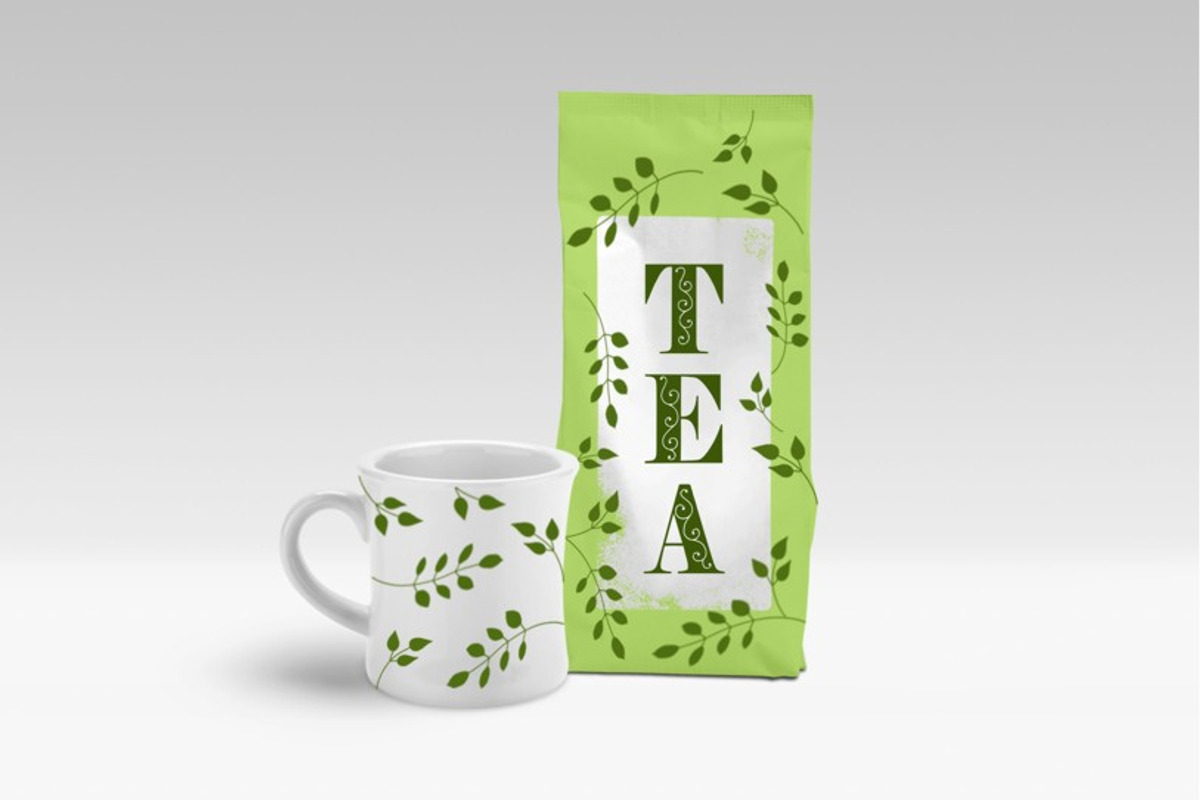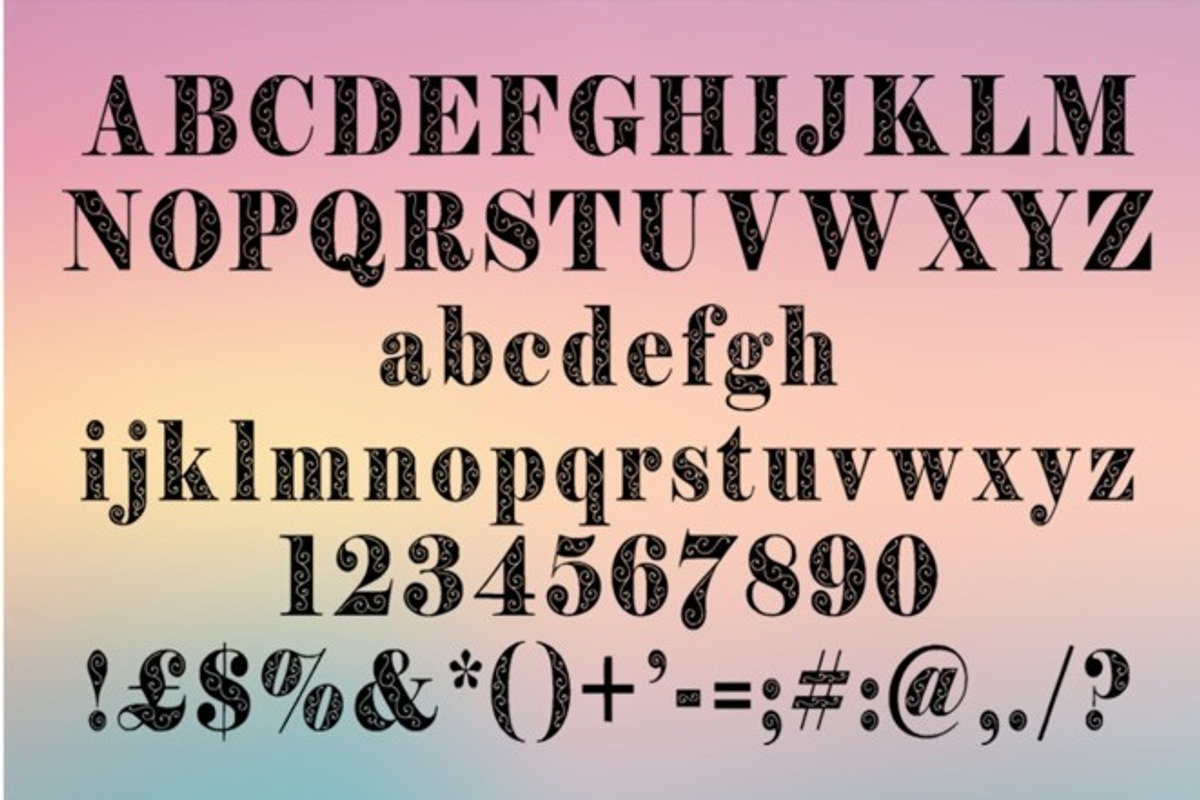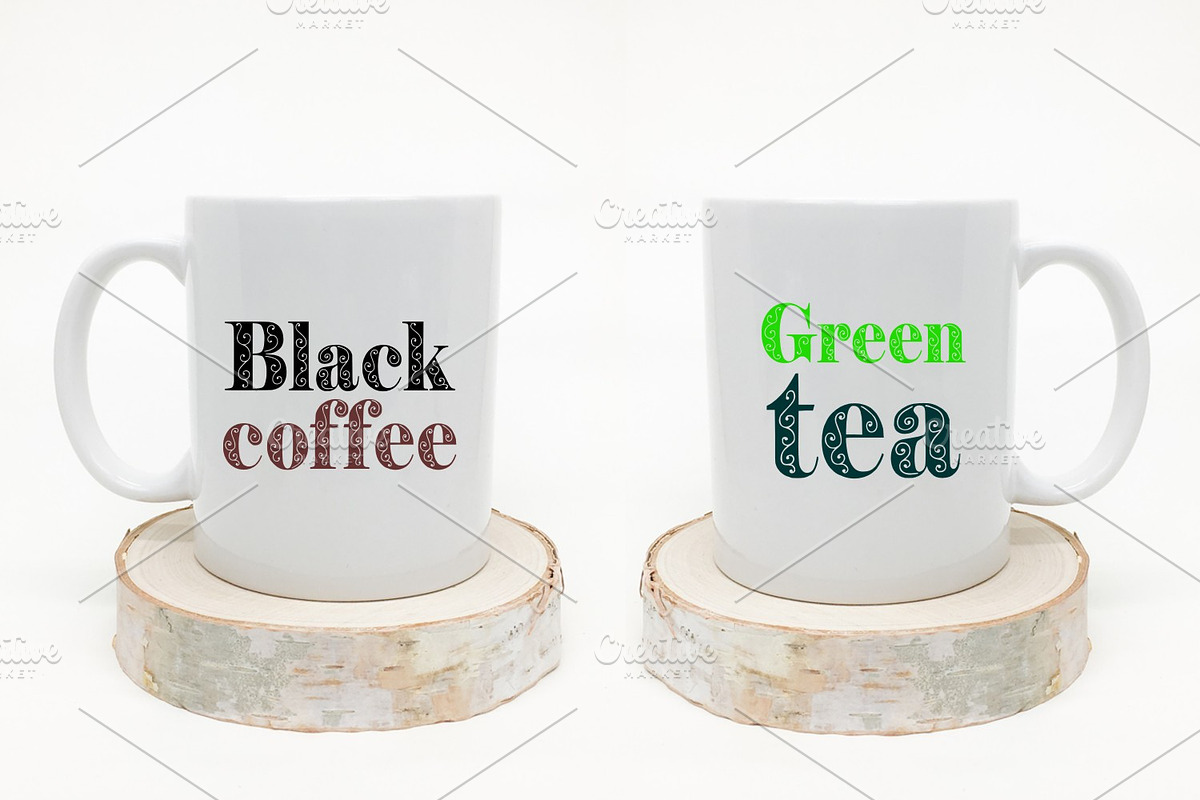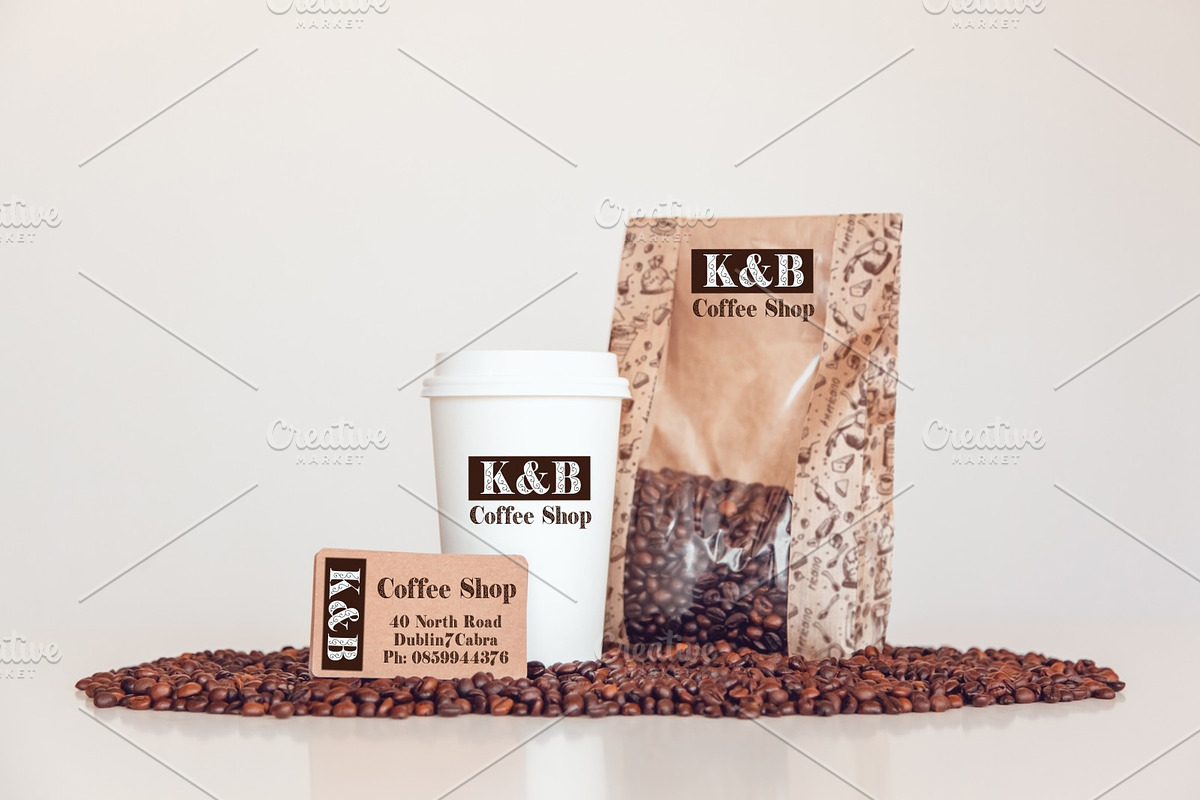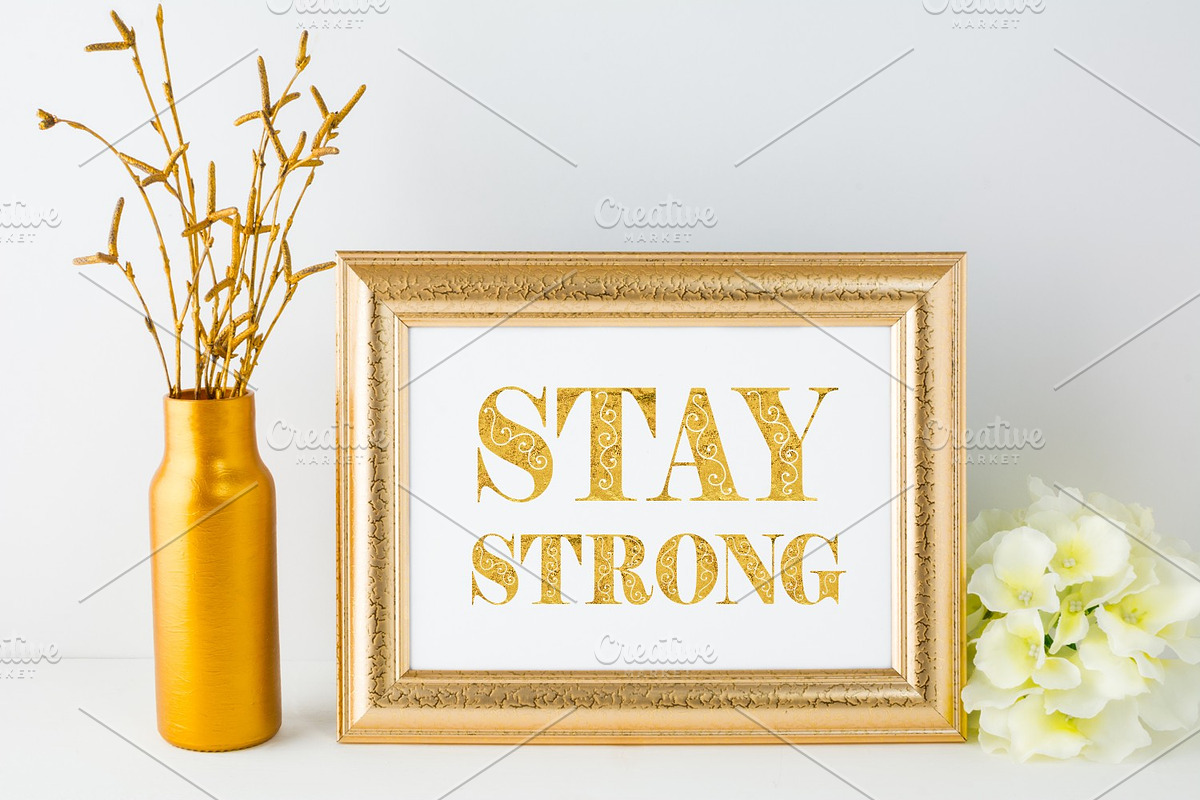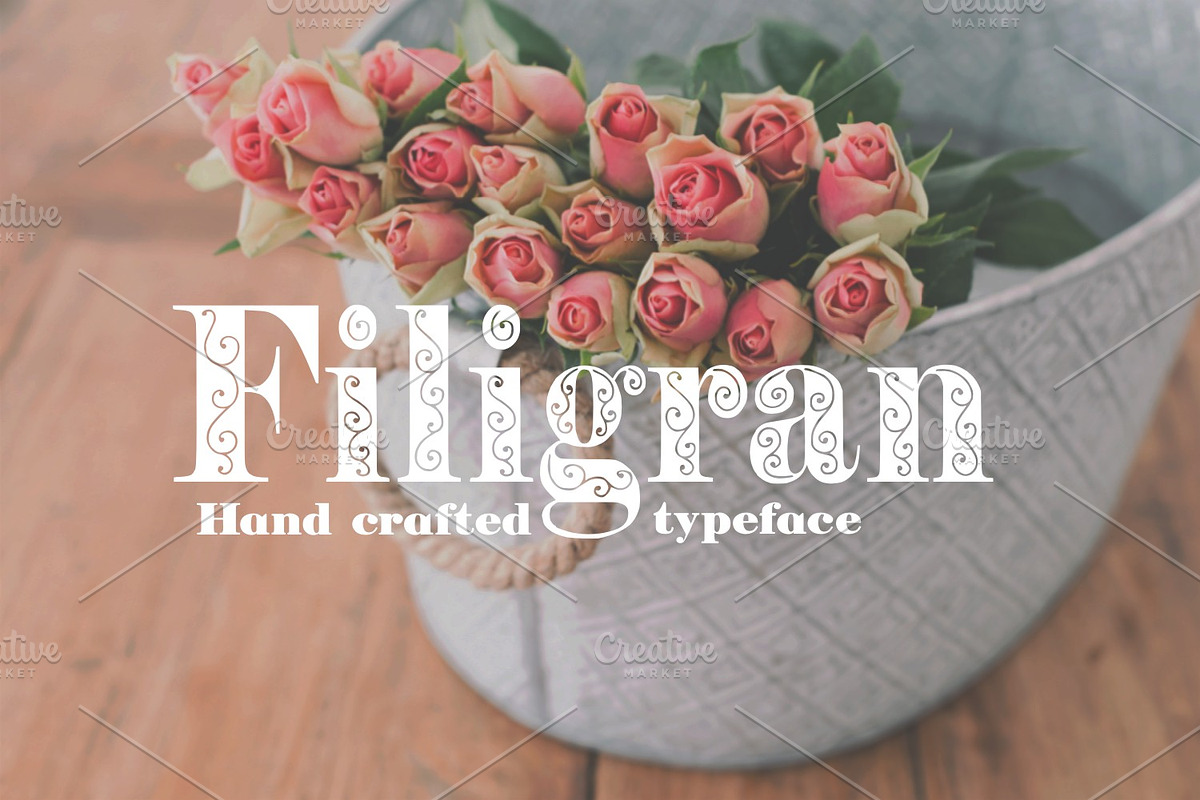
Filigran Decorative Font
Filigran Decorative Font by Digital Typeface Studio is a font selected for branding, posters, packaging, typography.
Why Filigran Decorative Font is worth a look
Filigran Decorative Font by Digital Typeface Studio fits naturally into Branding, posters, packaging, typography.